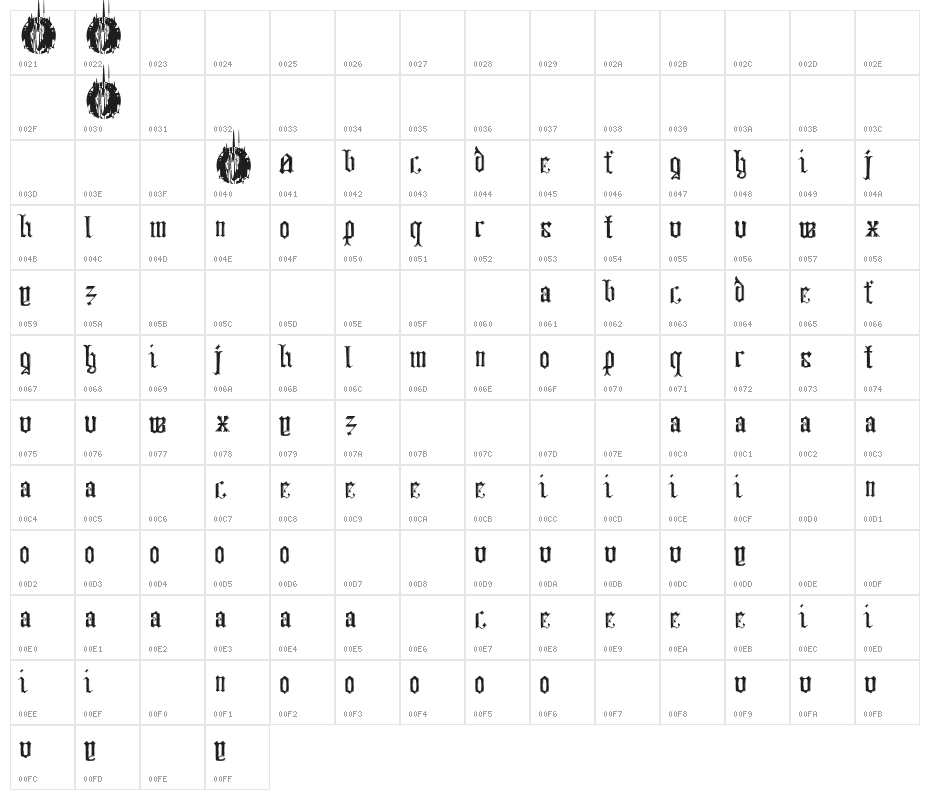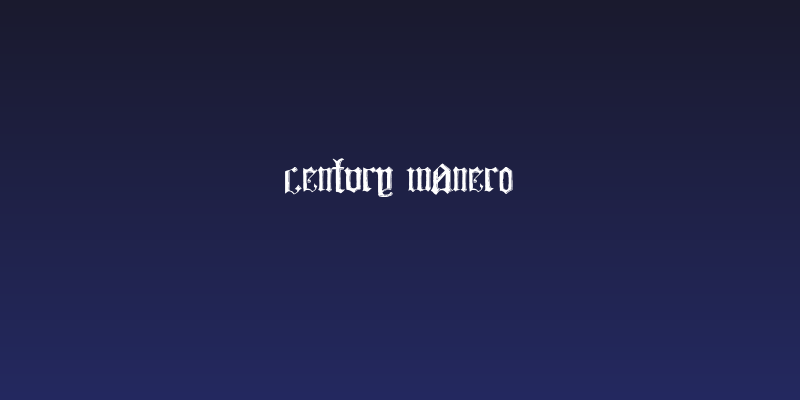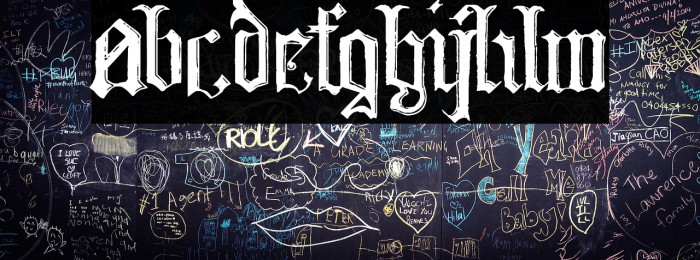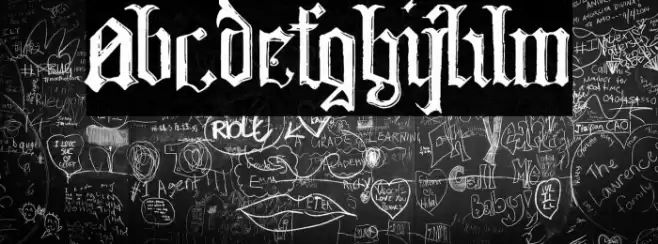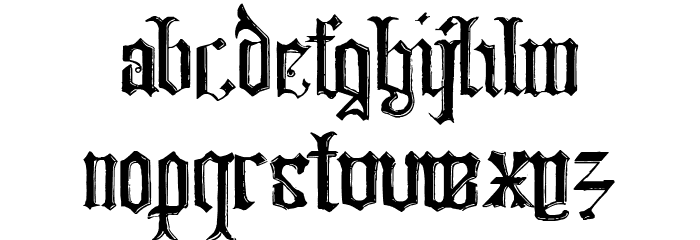
Century Manero Font
Century Manero Description
This font features a striking and bold blackletter style, characterized by its intricate and angular letterforms. The design is reminiscent of traditional Gothic scripts, with sharp edges and elaborate details that give it a distinct medieval appearance. The uppercase and lowercase letters maintain a consistent style, with a strong emphasis on vertical strokes and pointed serifs. The numerals and special characters are crafted to match the overall aesthetic, ensuring a cohesive look across all elements. This font's dramatic and ornate nature makes it ideal for projects that require a historical or formal touch.
| Overall Style | Vintage |
| Use Case | Logos, Headlines, Decorative purposes |
| Proposed Projects | Ideal for historical documents, formal invitations, book covers, and branding that requires a traditional or Gothic touch. |